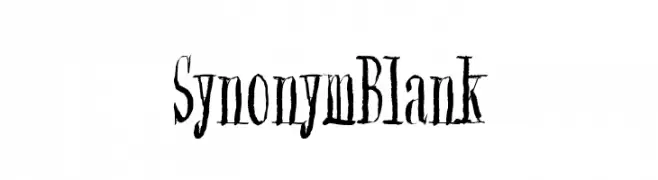
A hand-drawn, distressed font with dramatic serifs and artistic flair.
A haunting, distressed font with tall, narrow letterforms and a scratchy texture.